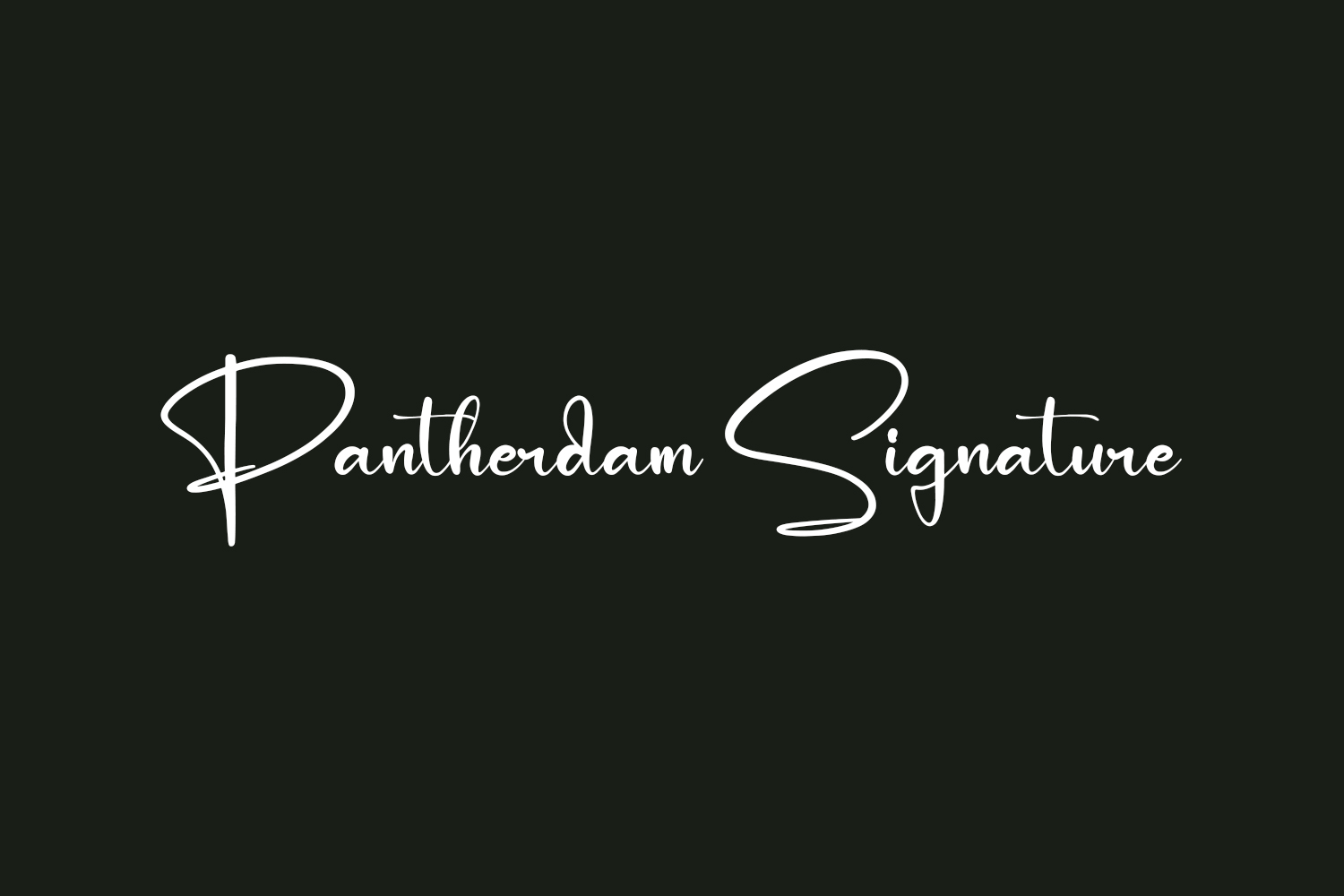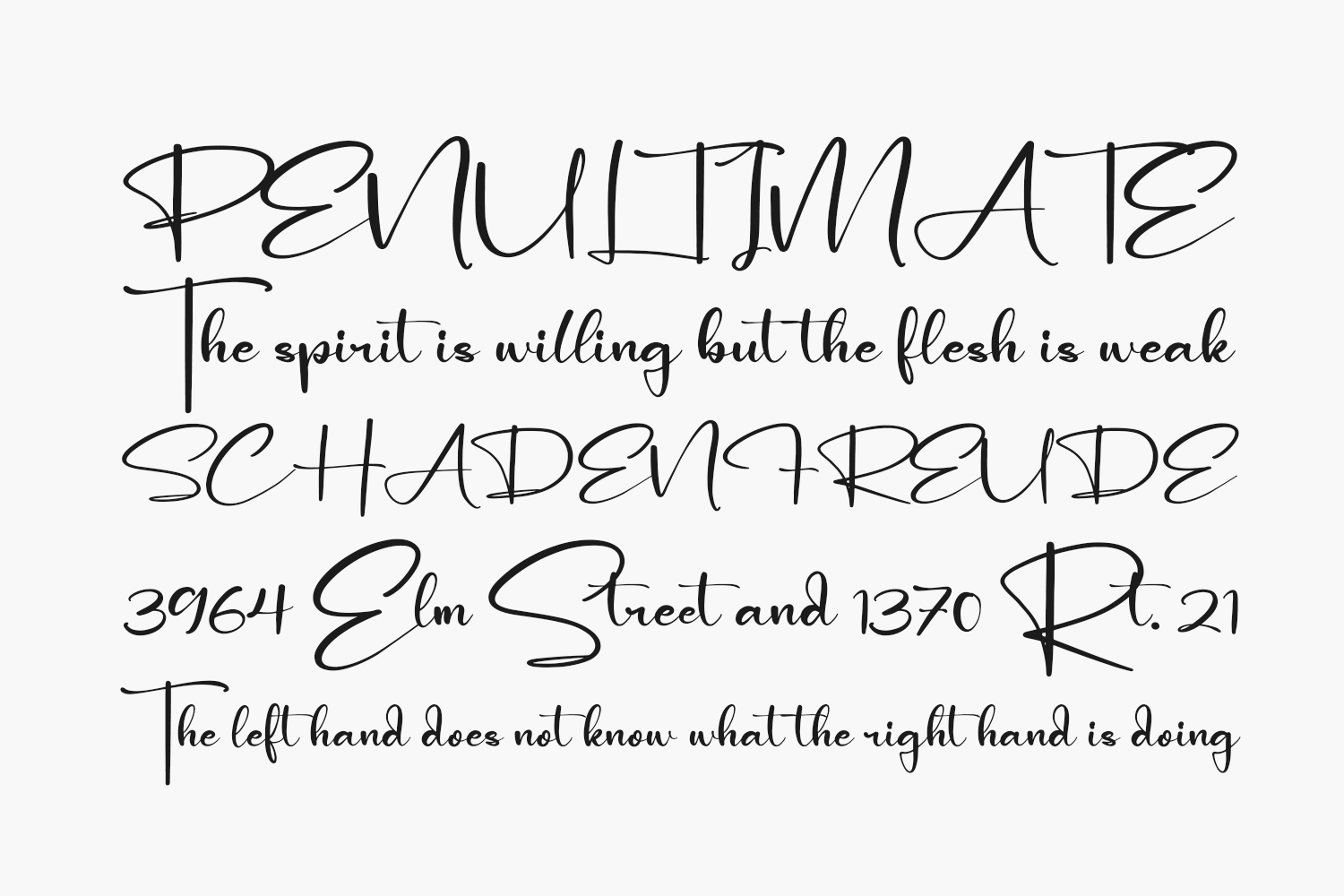
Pantherdam Signature Free Font Family is a stylish calligraphy typeface with characters that dance along the baseline. It will add a luxury spark to any design project that you wish to create. Pantherdam Signature Free Font Family was designed by Perspectype Studio and is free for personal use only. Please purchase the full version for commercial use.
Pantherdam Signature Regular The quick brown fox jumps over the lazy dog
Pantherdam Signature Italic The quick brown fox jumps over the lazy dog